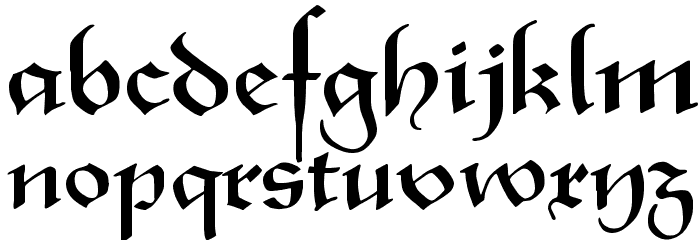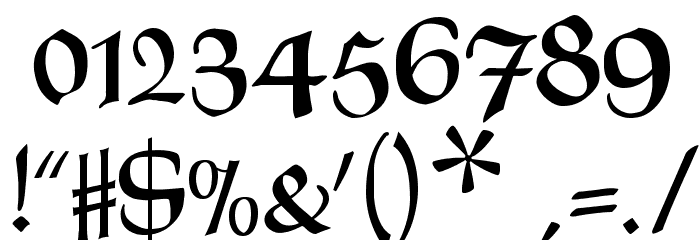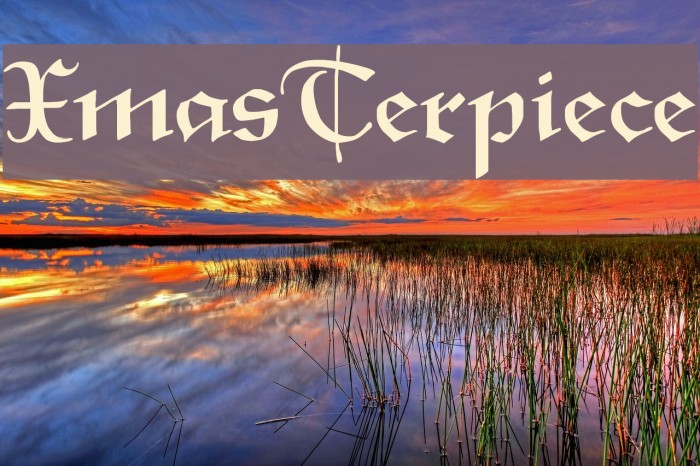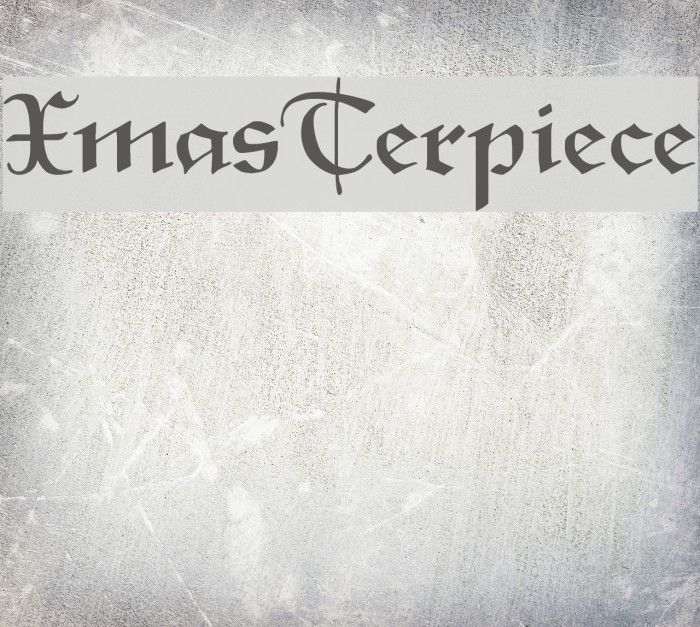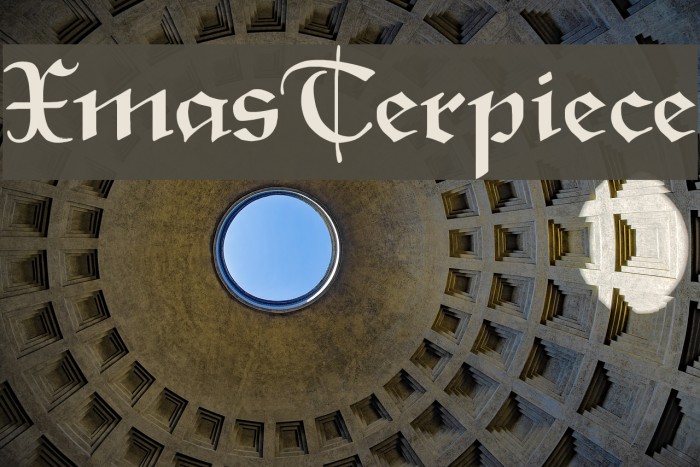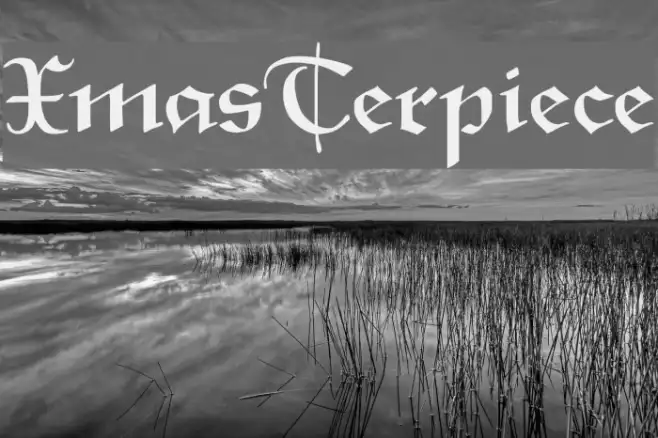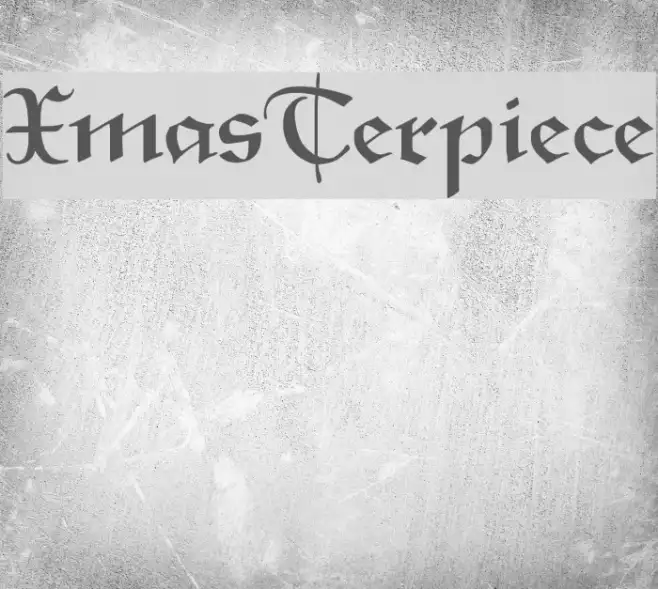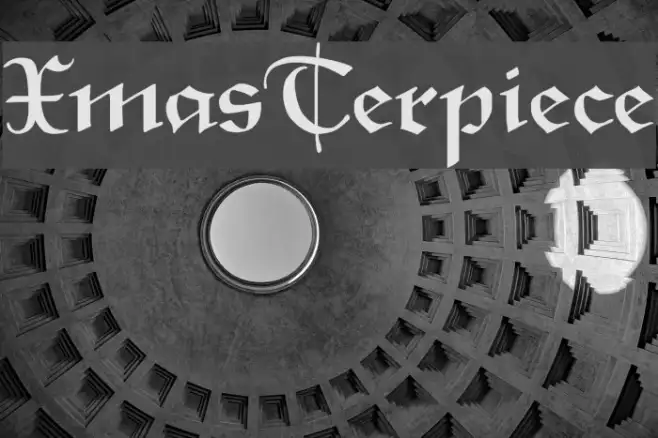
XmasTerpiece Font
This font features a distinct and intricate design, reminiscent of traditional calligraphy with a modern twist. The uppercase letters are characterized by sharp, angular strokes and elaborate flourishes, giving them a dramatic and elegant appearance. The lowercase letters maintain a consistent style, with smooth curves and pointed edges that enhance readability while preserving the font's artistic flair. The numerals are bold and well-defined, matching the overall aesthetic of the alphabet. Special characters are crafted with the same attention to detail, ensuring a cohesive look across all elements. This font's unique style makes it suitable for projects that require a touch of sophistication and historical charm.
A decorative font with calligraphic elements and elegant flourishes.
- Proposed Projects: Ideal for invitations, greeting cards, branding, and decorative headings.
- Use Case: Headlines, Logos, Invitations